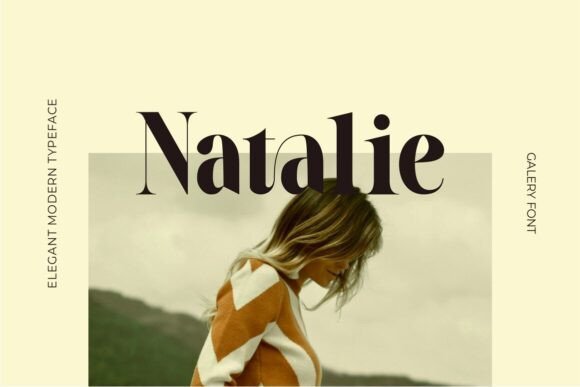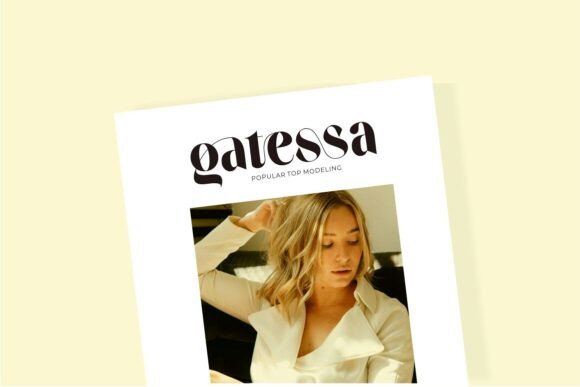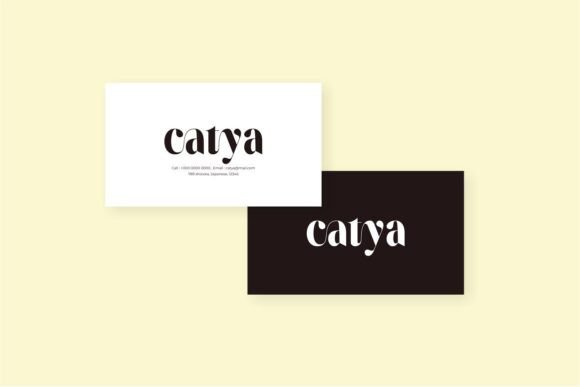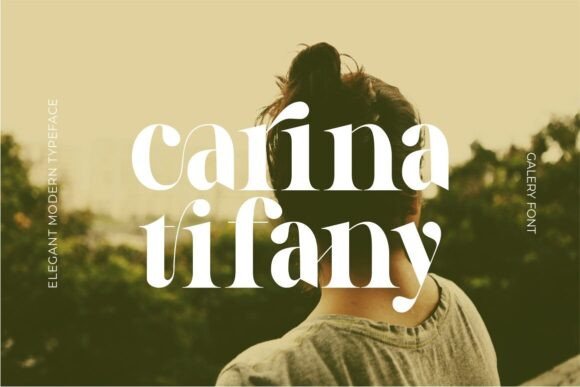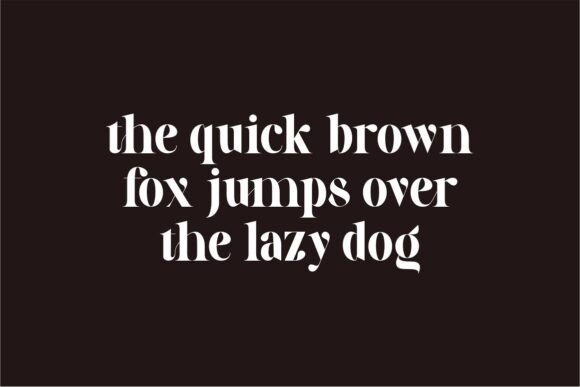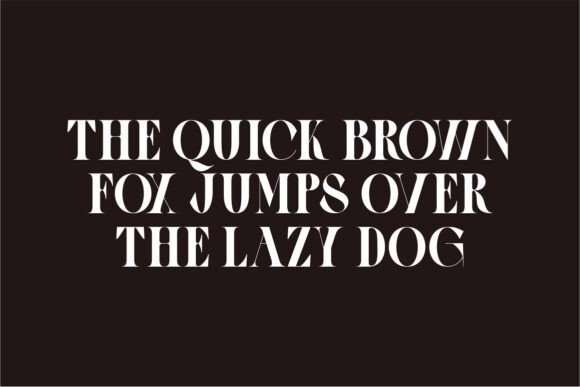
Introducing Galery Font: The Elegant Modern Ligature Typeface
- ✅ Elegant and modern serif design
- ✅ Stylish ligatures and glyphs for added creativity
- ✅ Highly versatile for various design projects, from magazines to branding
- ✅ Easy to read and works well in both digital and print formats
While Galery Font is an excellent choice, there are a few things to keep in mind:
- 🤔 Some users might find the font’s elegance a bit too refined for casual or playful designs.
- ⚠️ As with any font, it’s essential to test it in different contexts to ensure it works well for your specific project.
- Experiment with OpenType features, such as ligatures and stylistic alternates, to add a creative touch to your design.
Galery Font was designed with the intention of creating a modern and elegant serif font that would cater to the needs of designers seeking a sophisticated look. The design team aimed to craft a font that would be both versatile and refined, making it perfect for a wide range of design projects.
Q: What type of projects is Galery Font best suited for?
A: Galery Font is highly versatile and can be used for various design projects, including magazines, books, branding, business cards, social media, and more.
Q: Is Galery Font available in different weights or styles?
A: Galery Font comes in a range of weights and styles, making it easy to find the perfect variation for your design needs.